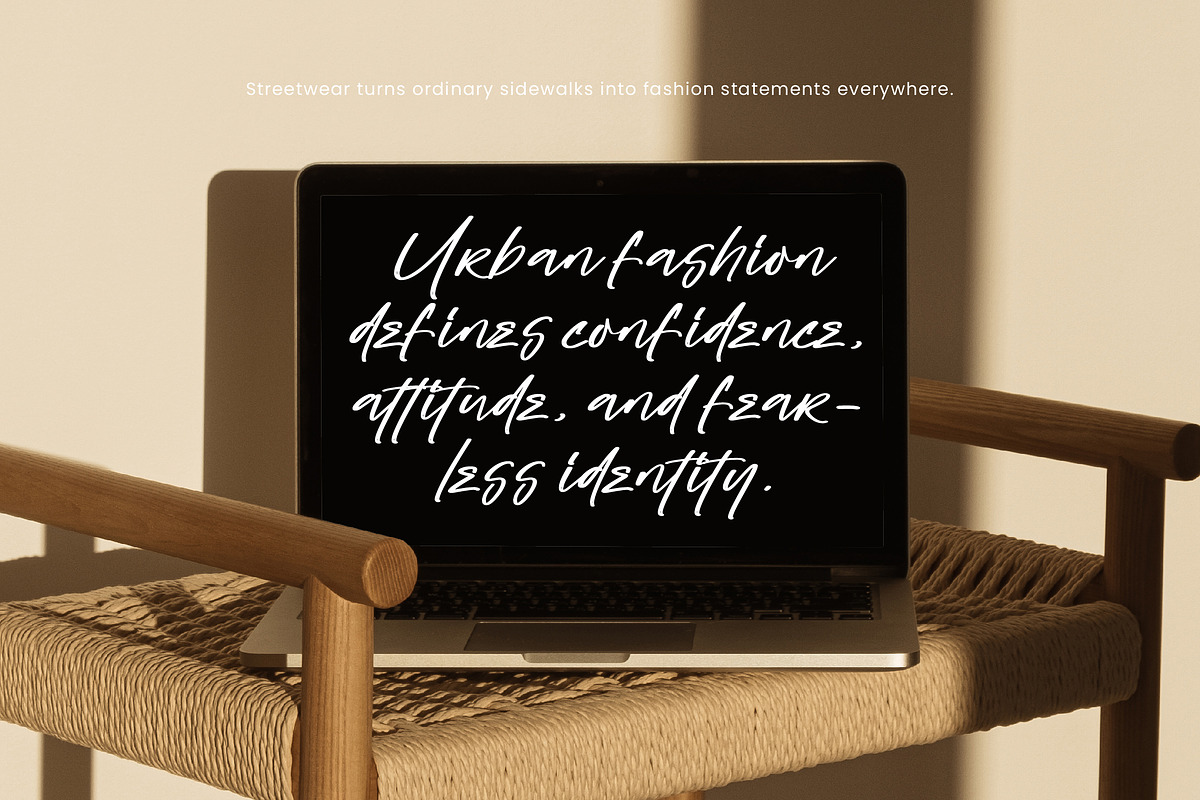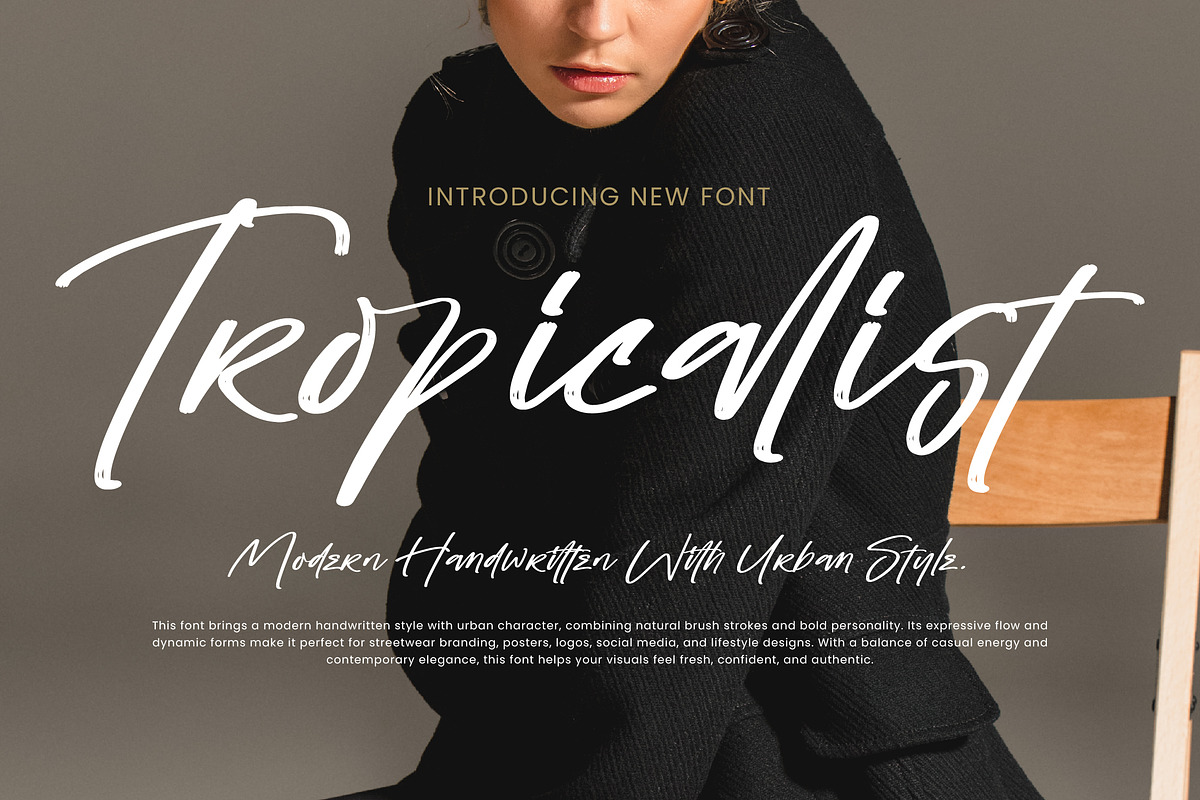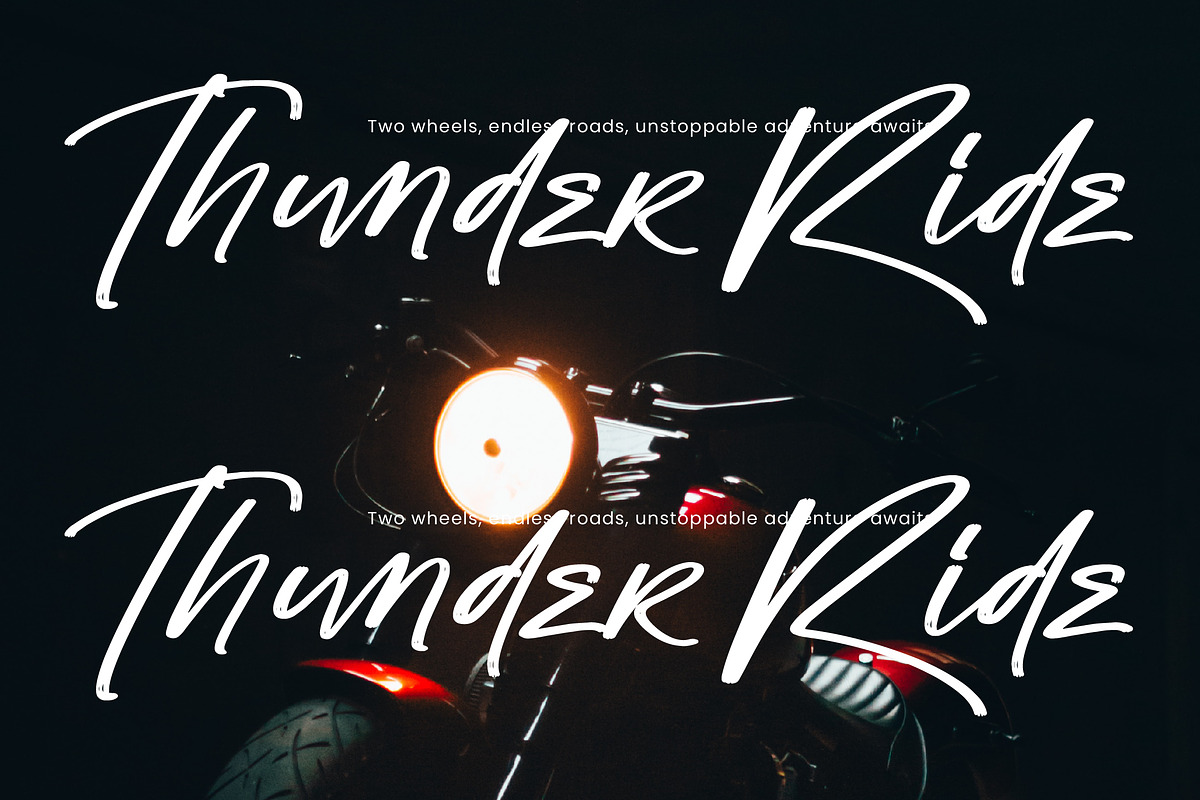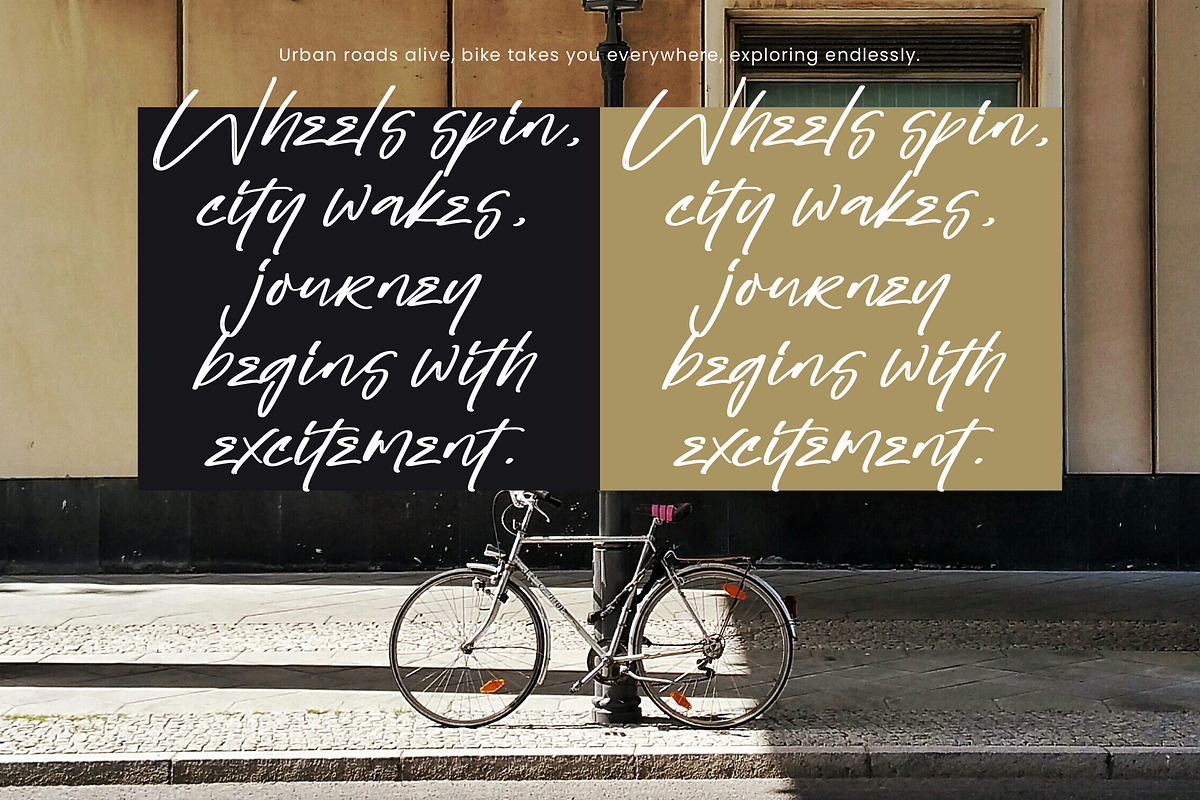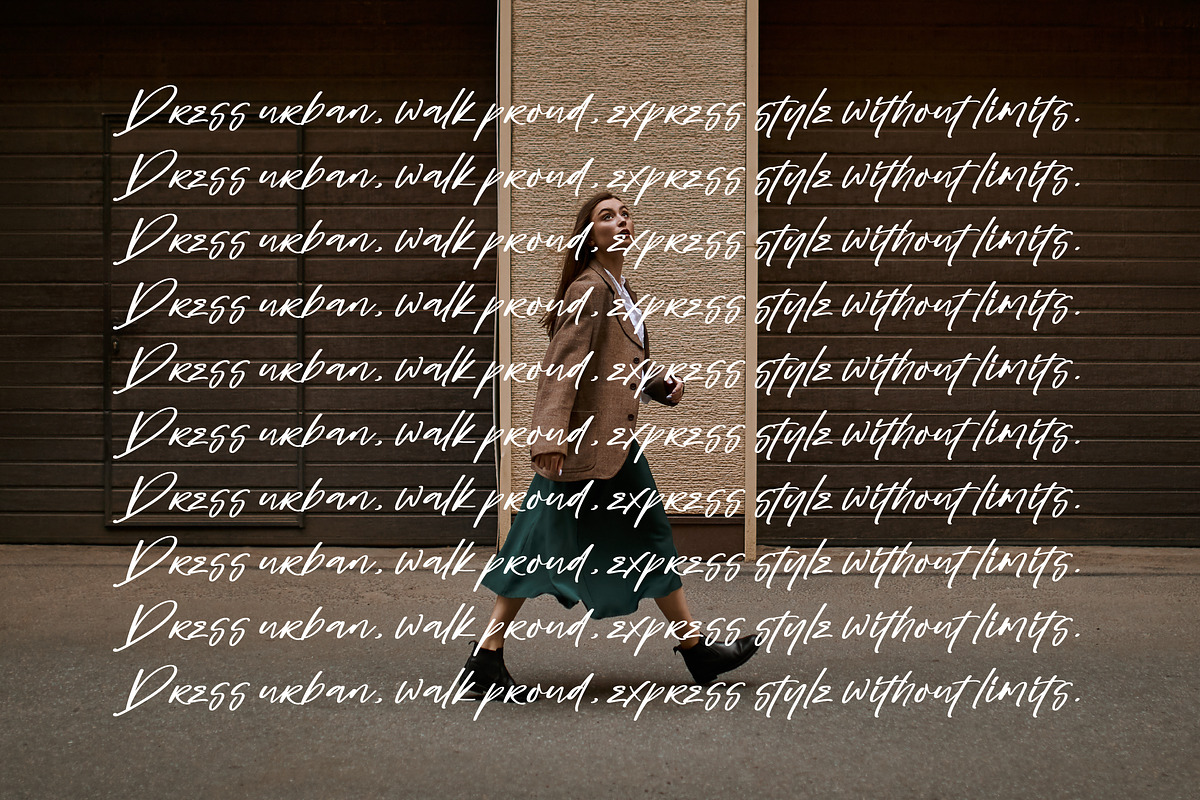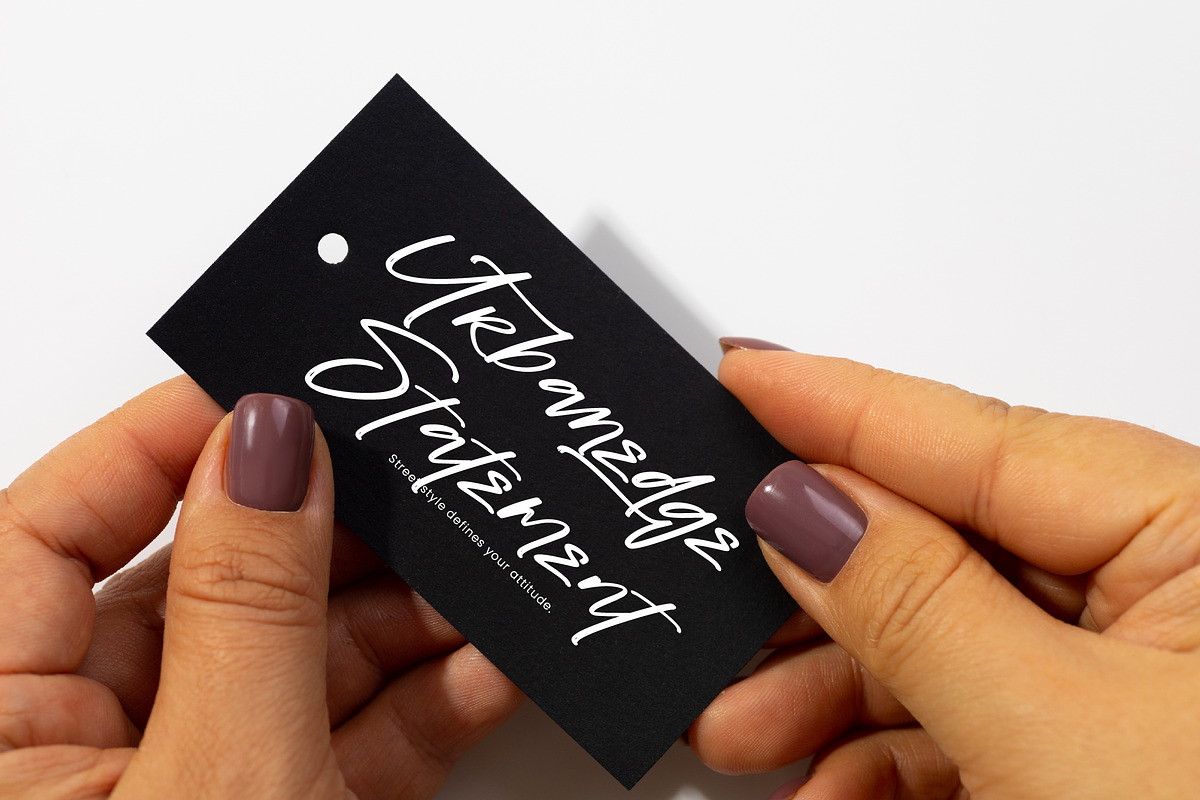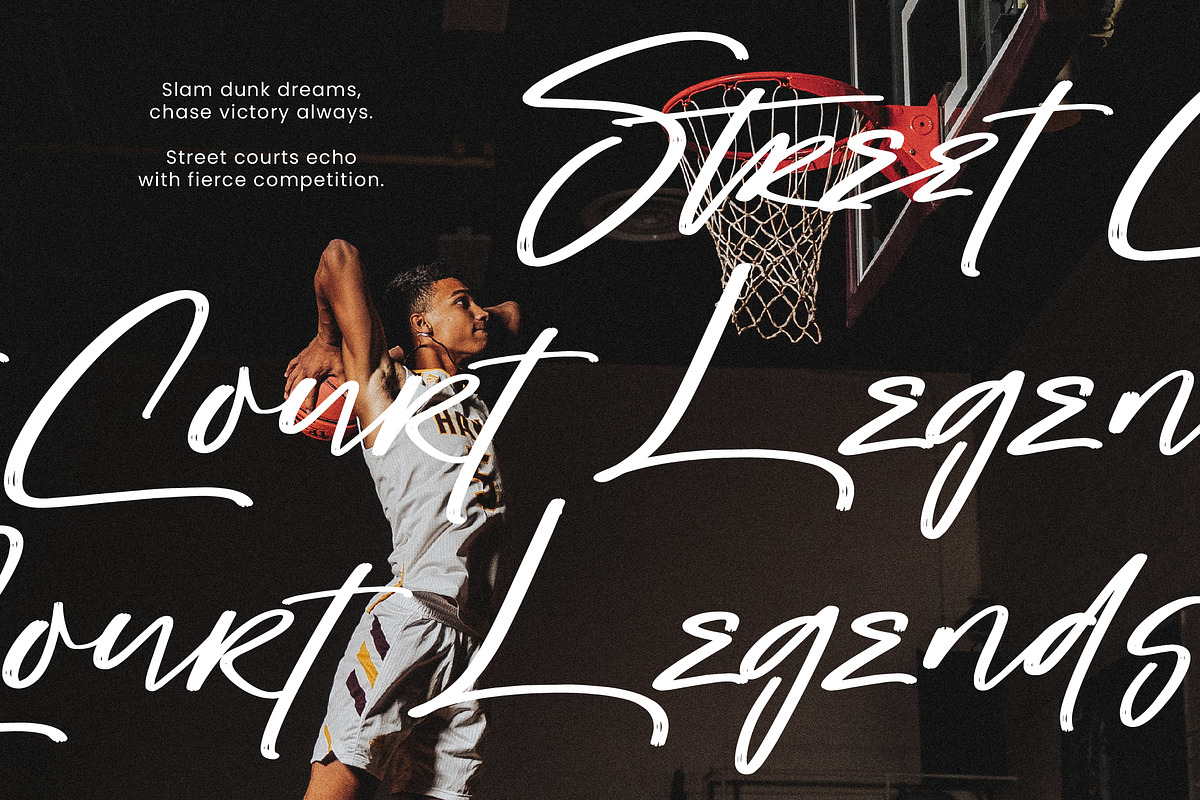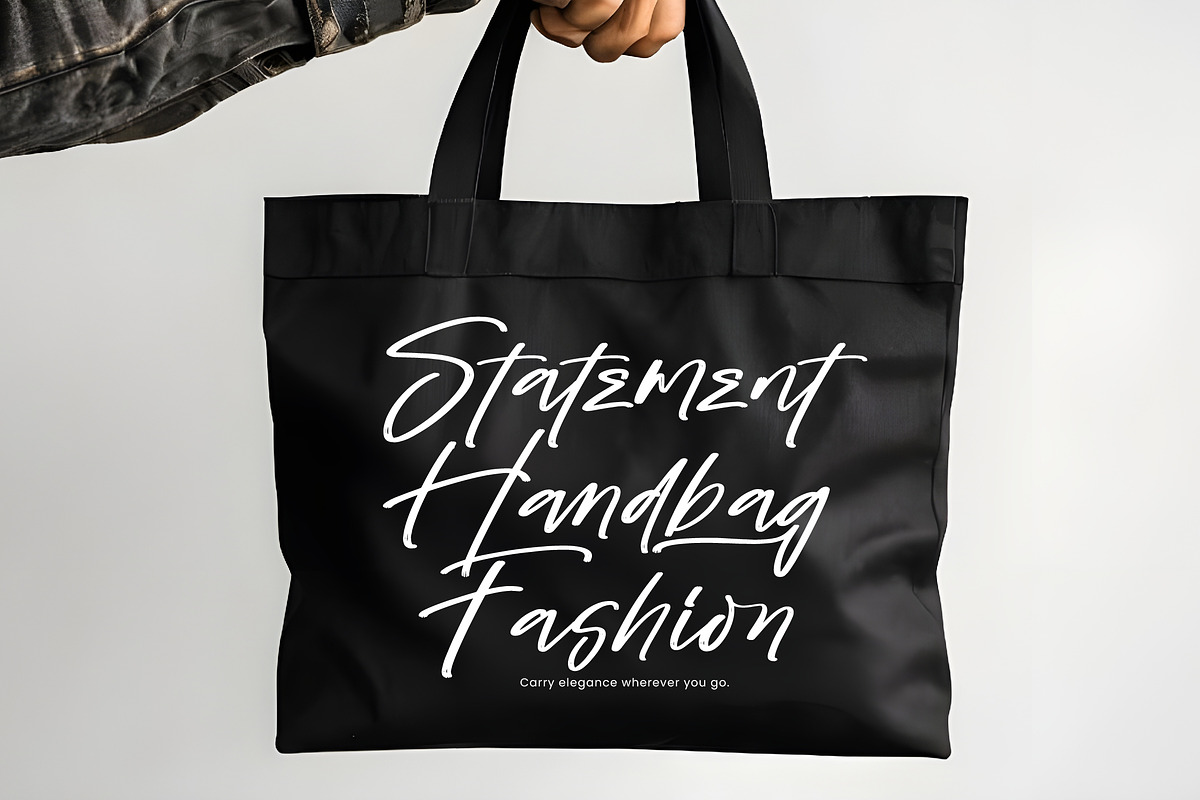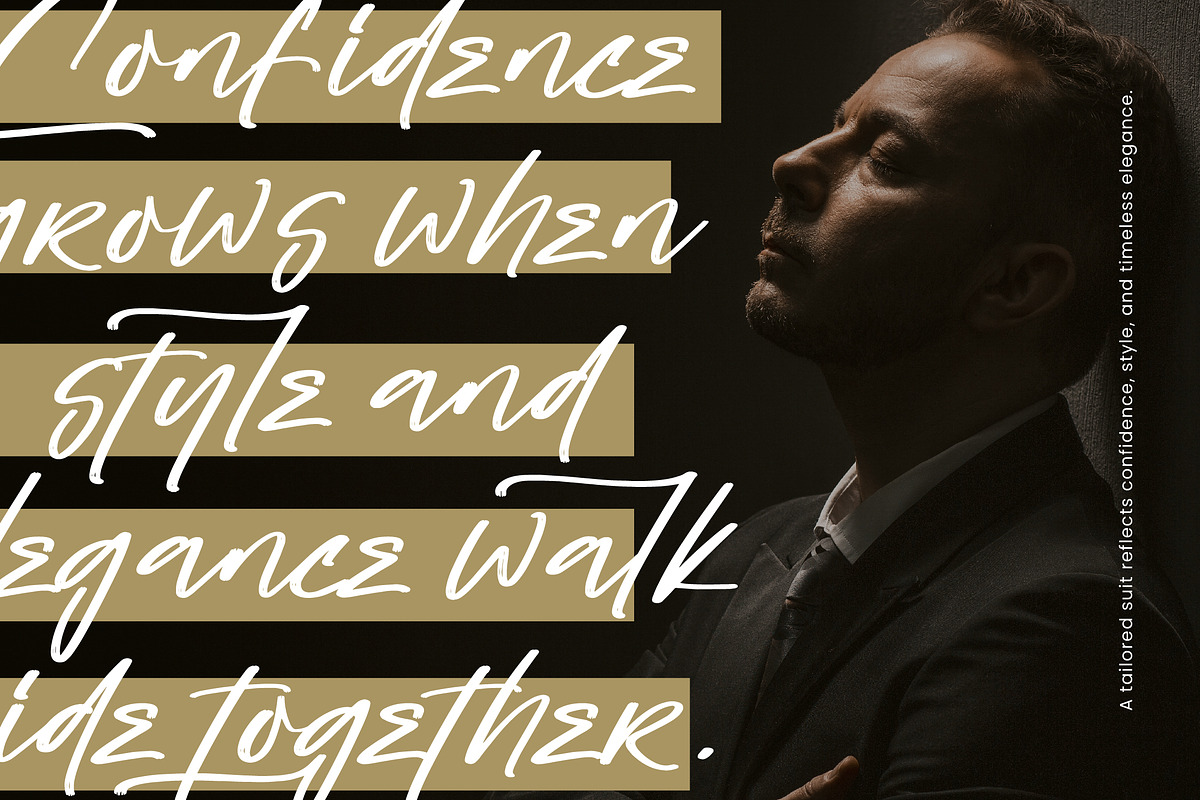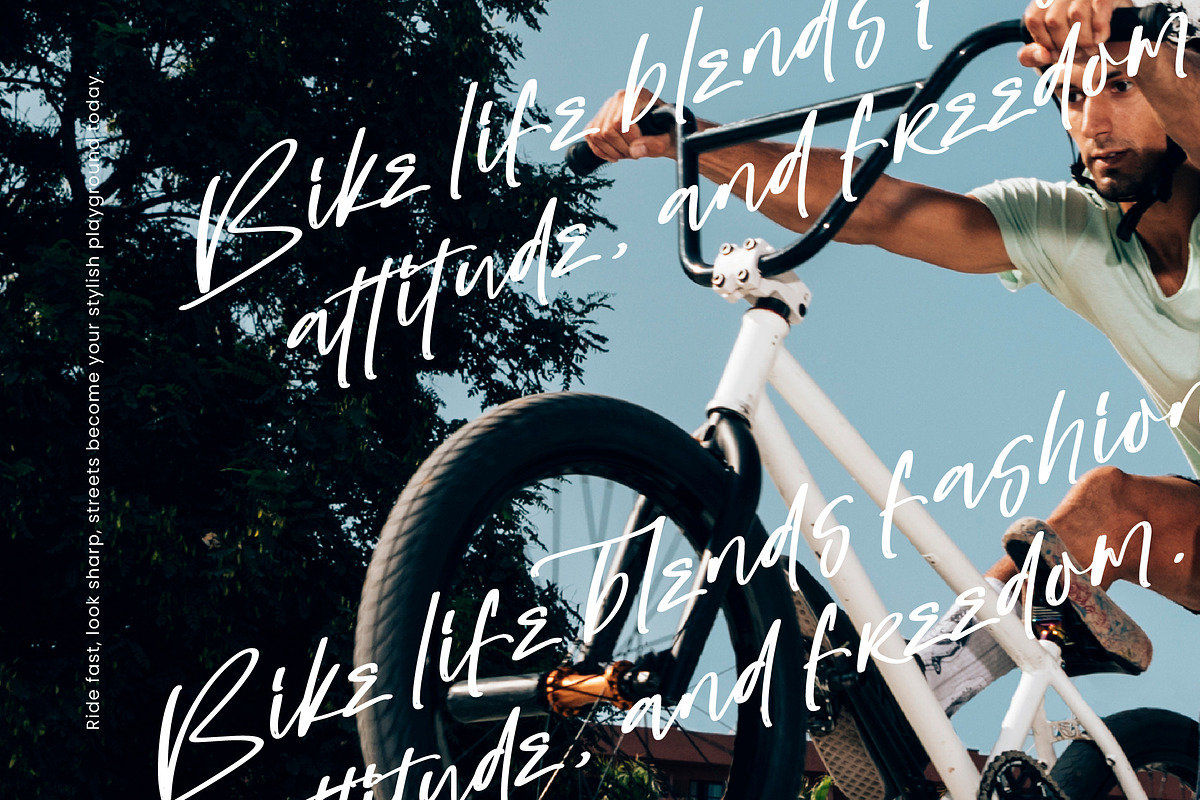
Tropicalist
Tropicalist - Modern Handwritten With Urban Style, from Operatype, perfect for any project like: logos, branding projects, homewares designs, product packaging, mugs, quotes, posters, shopping bags, t-shirts, covers books, business cards, invitation cards, greeting cards, labels, photography, watermarks, special events and all your other luxury projects that require a premium taste.
Ligatures, Alternate & Swashes